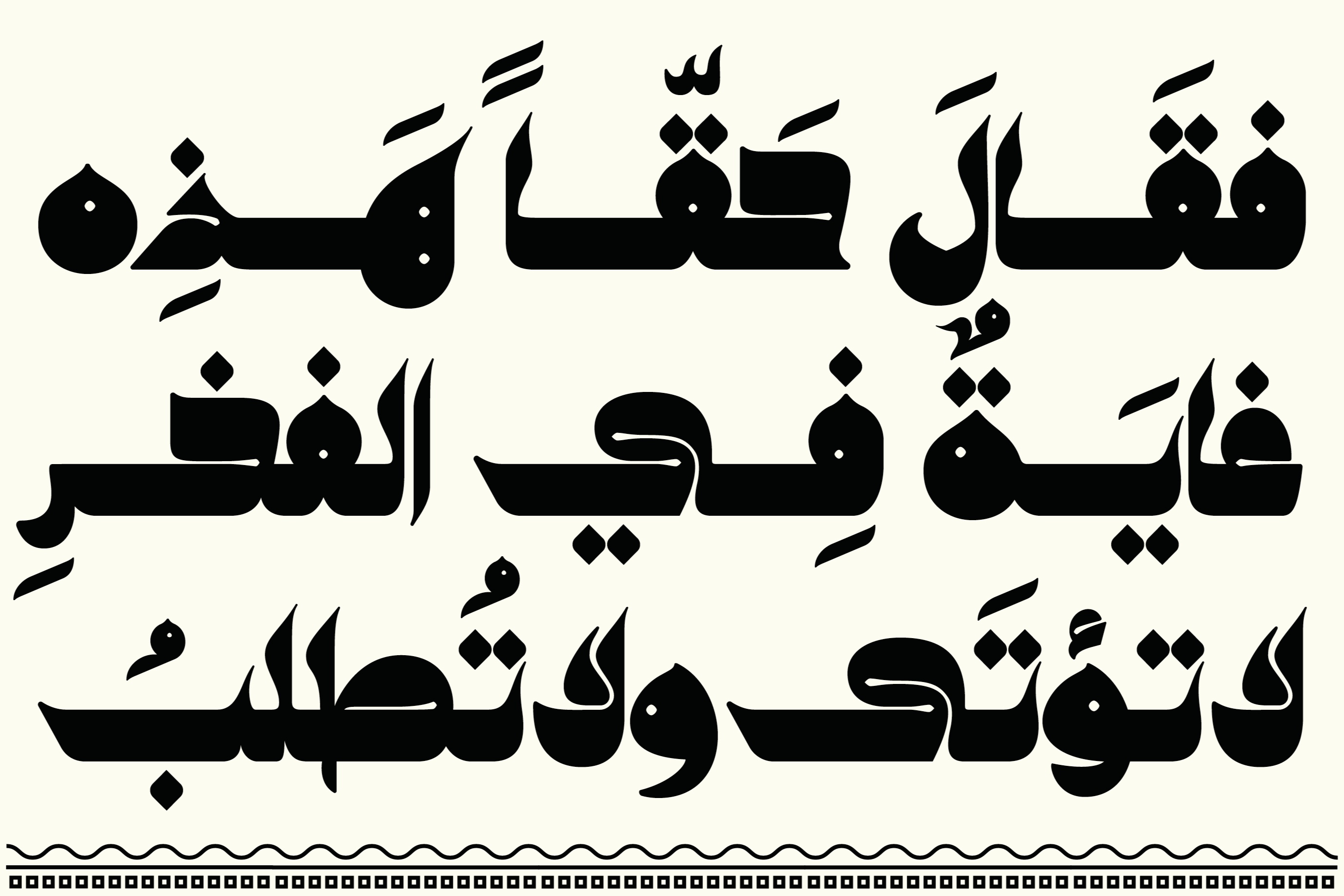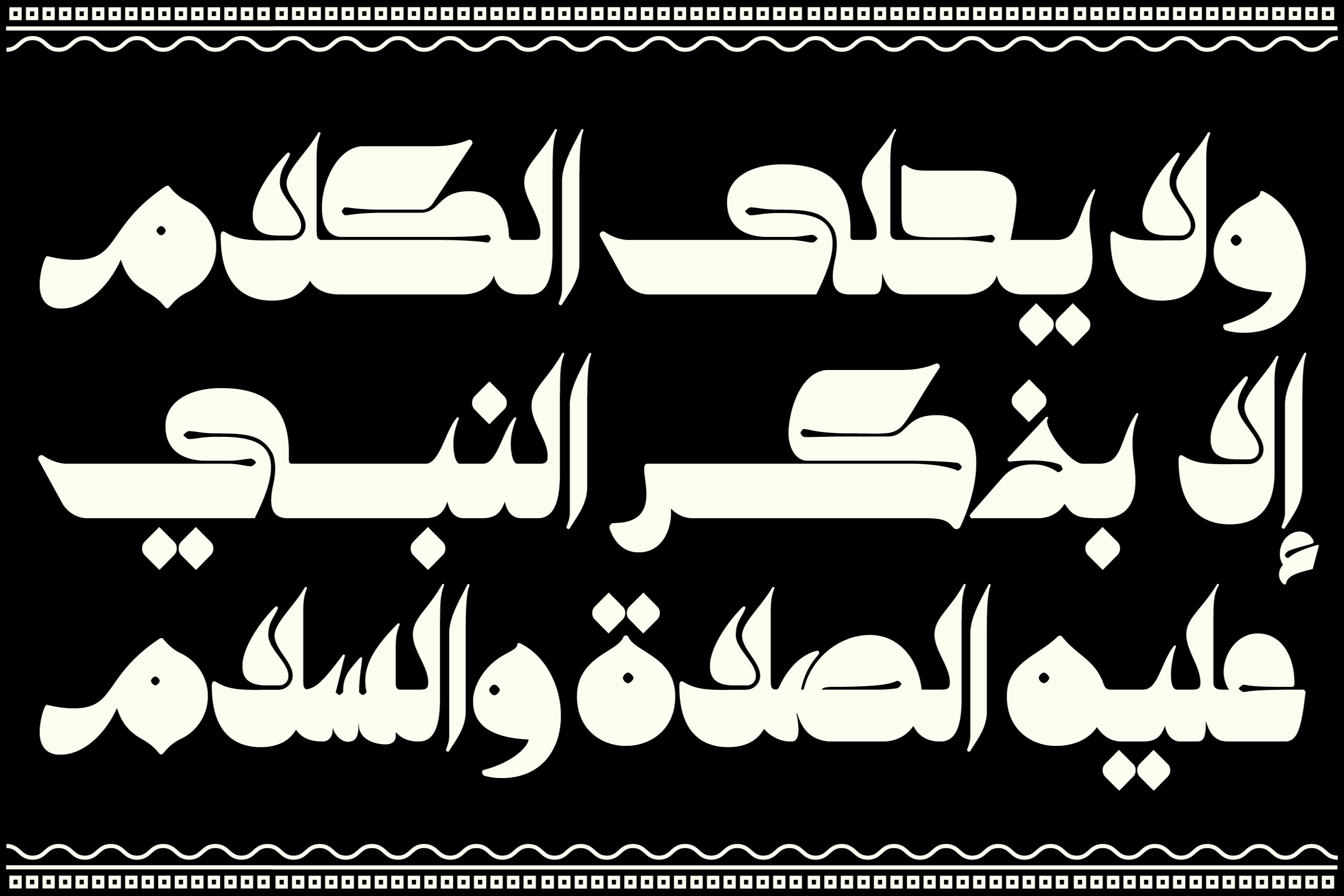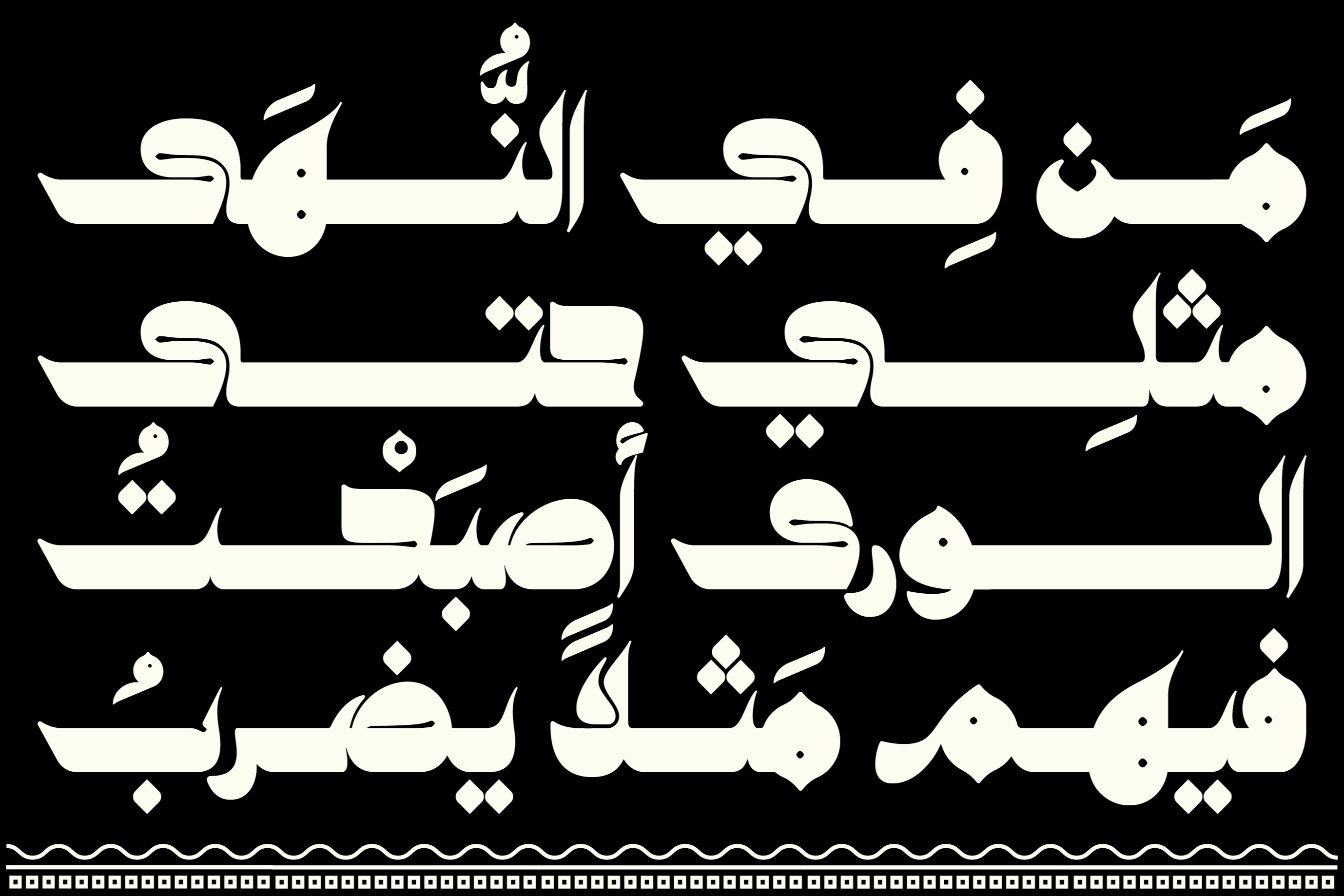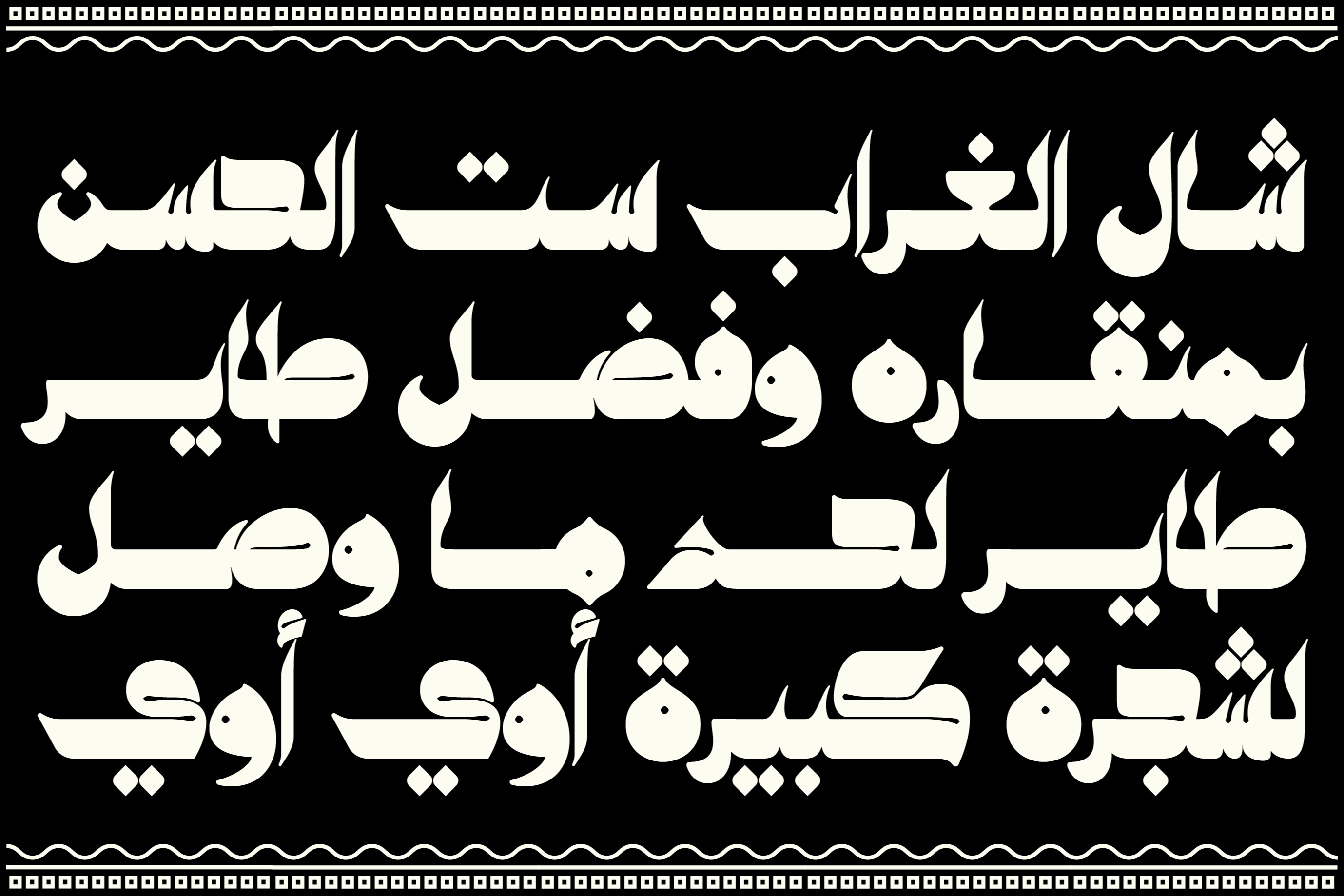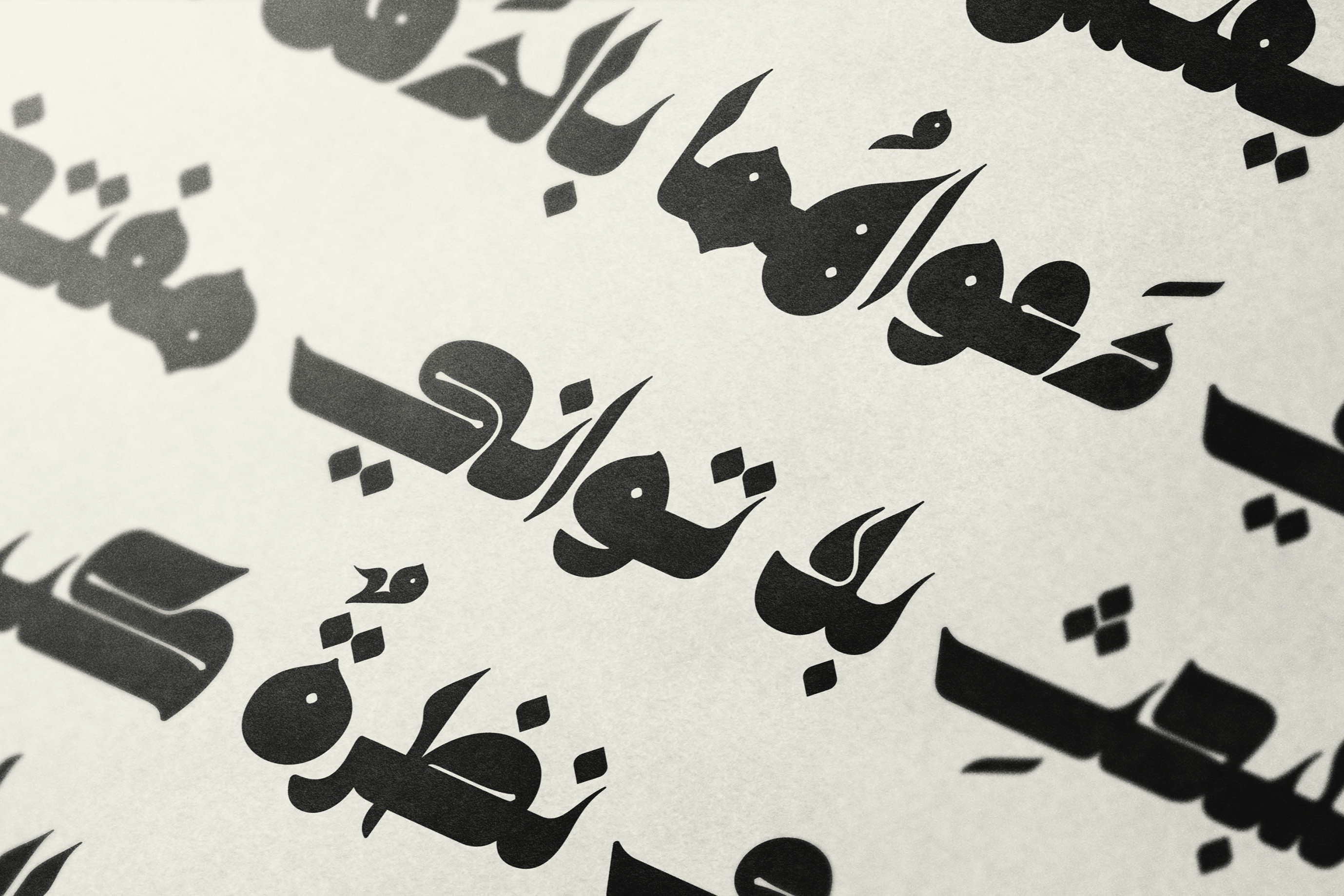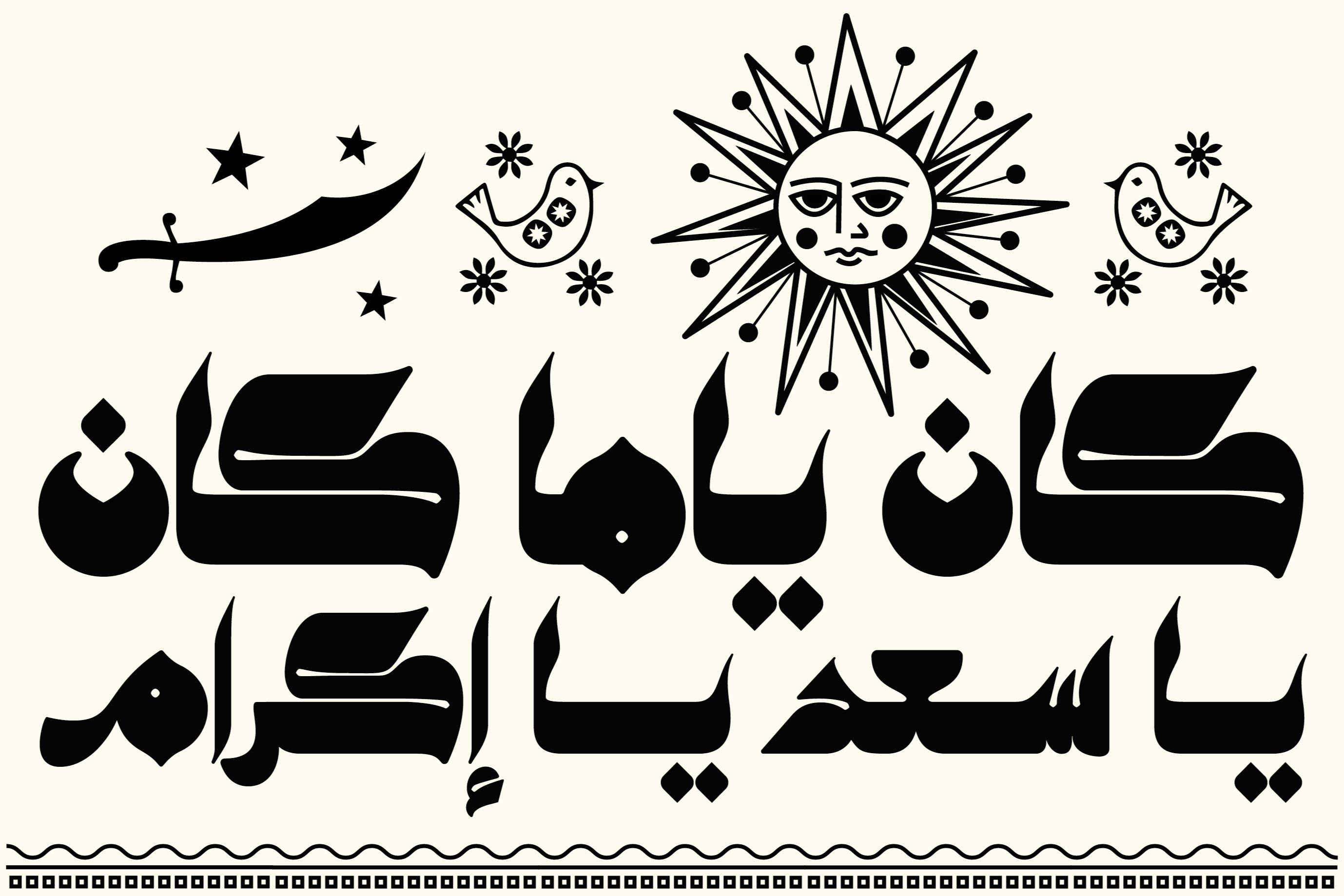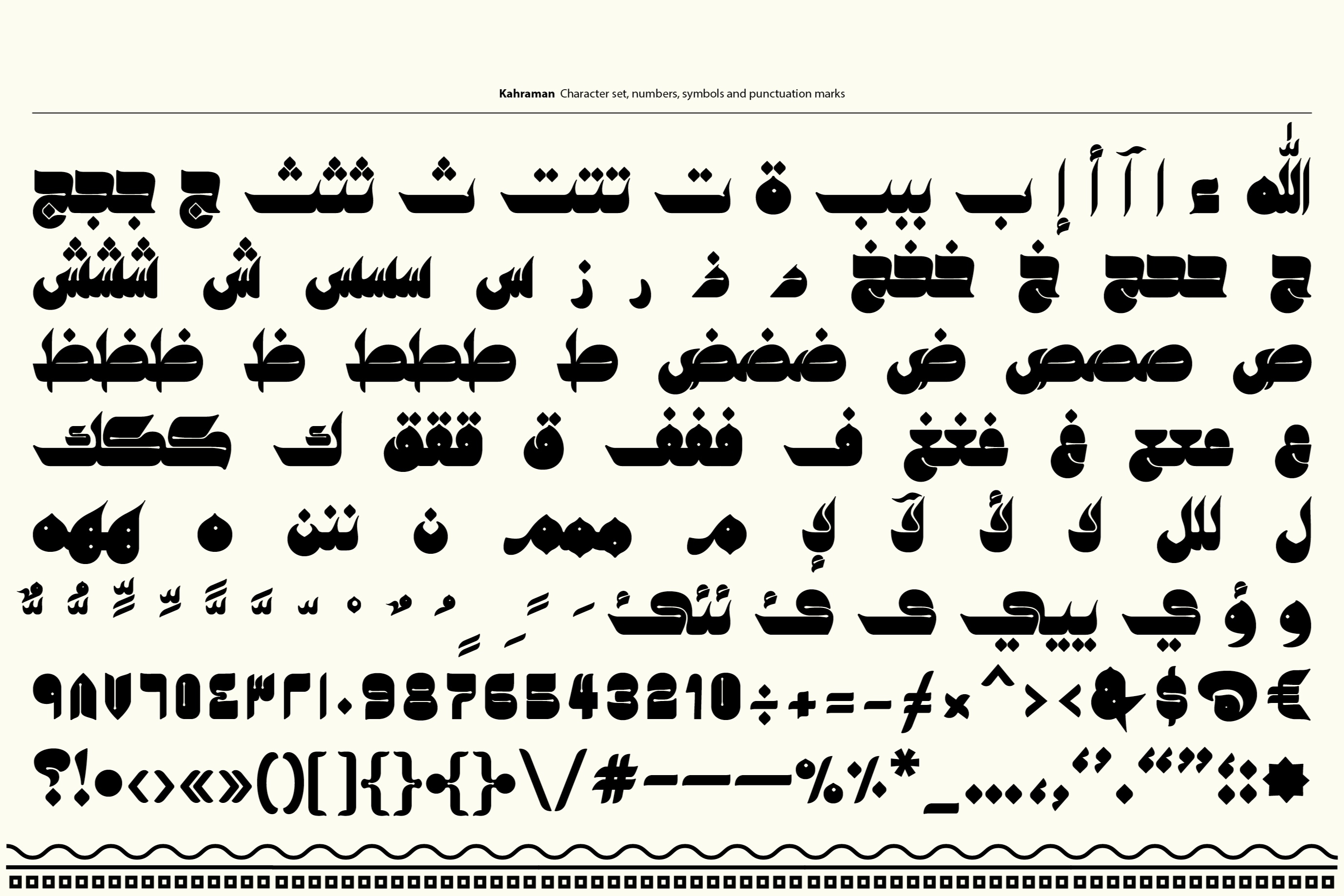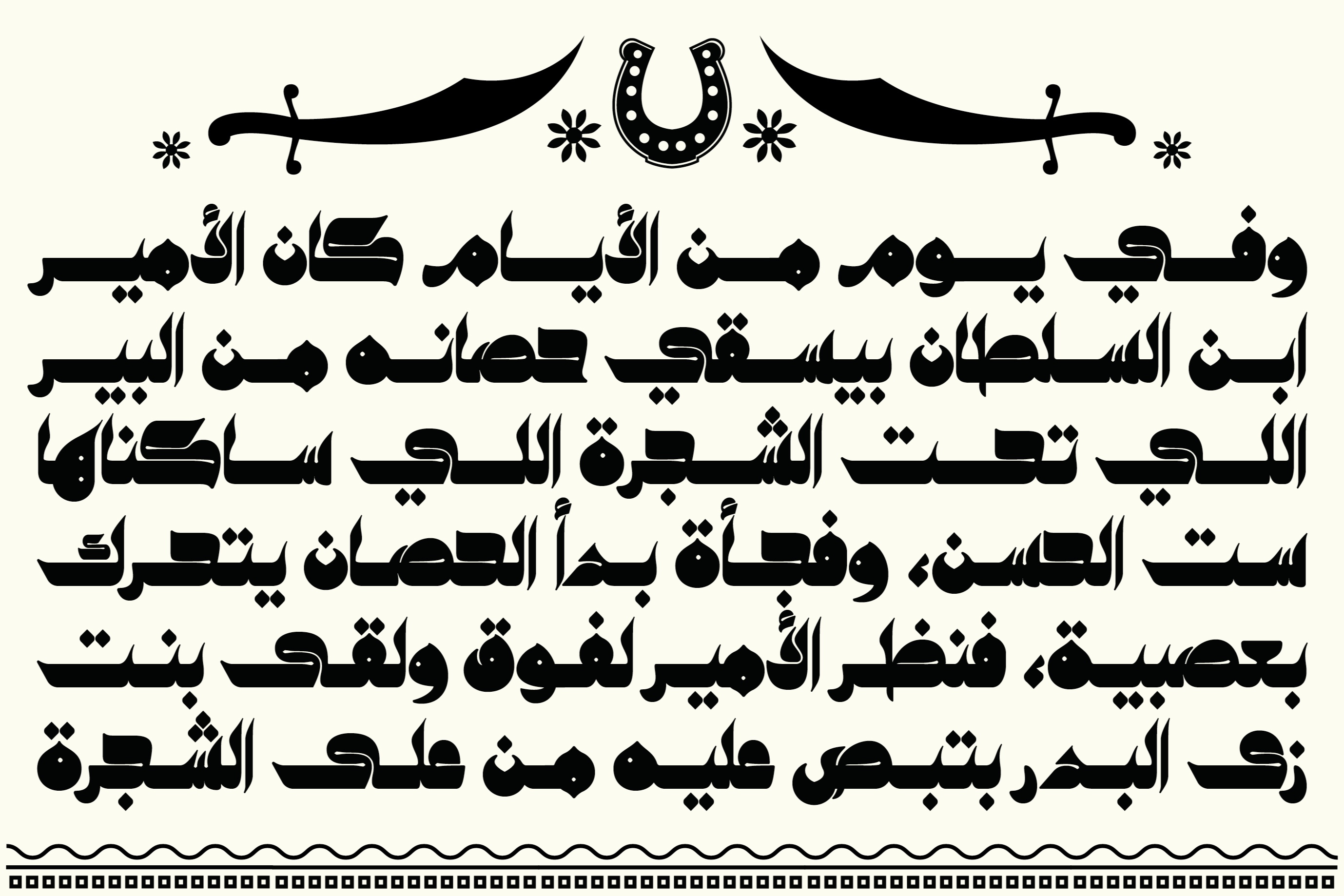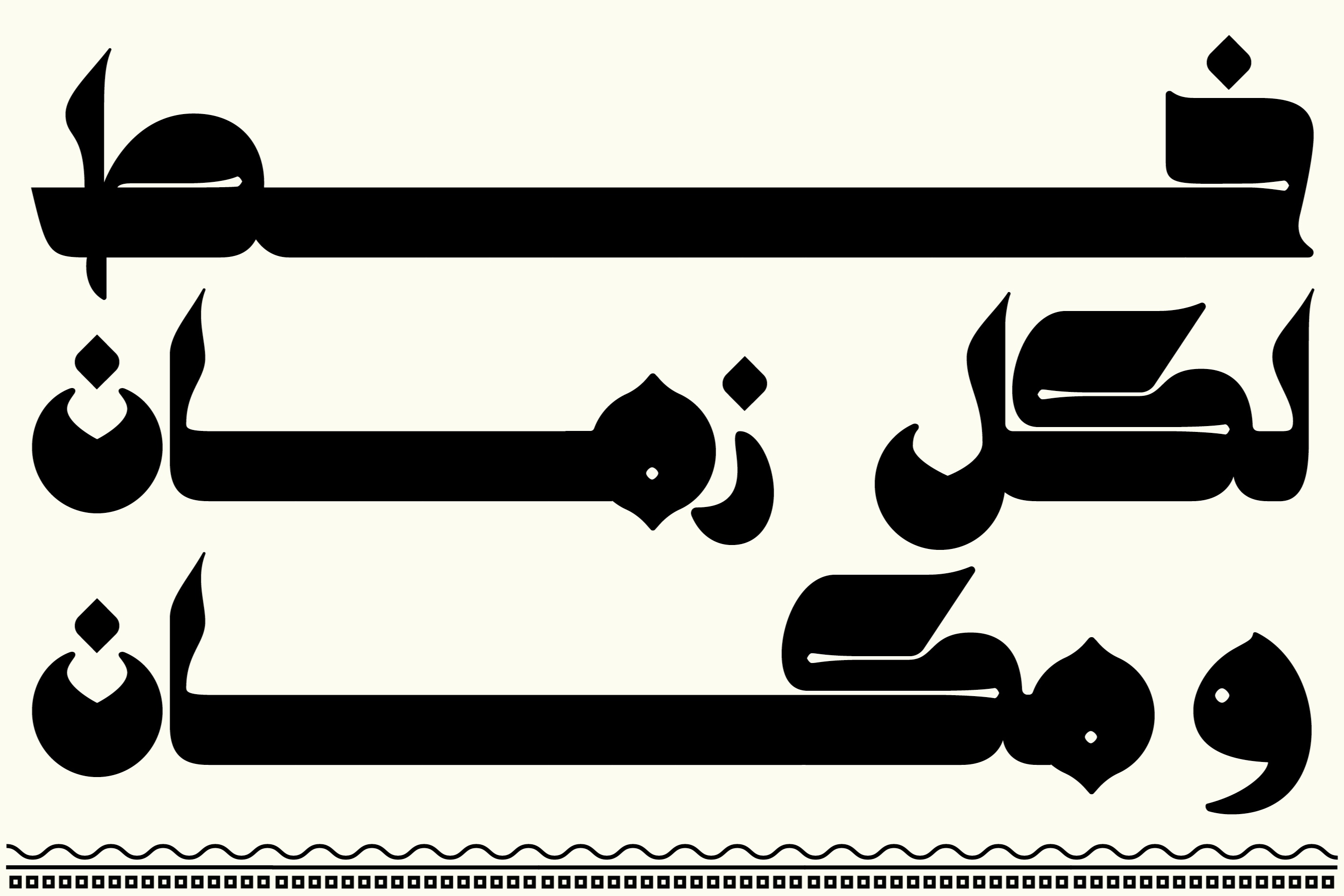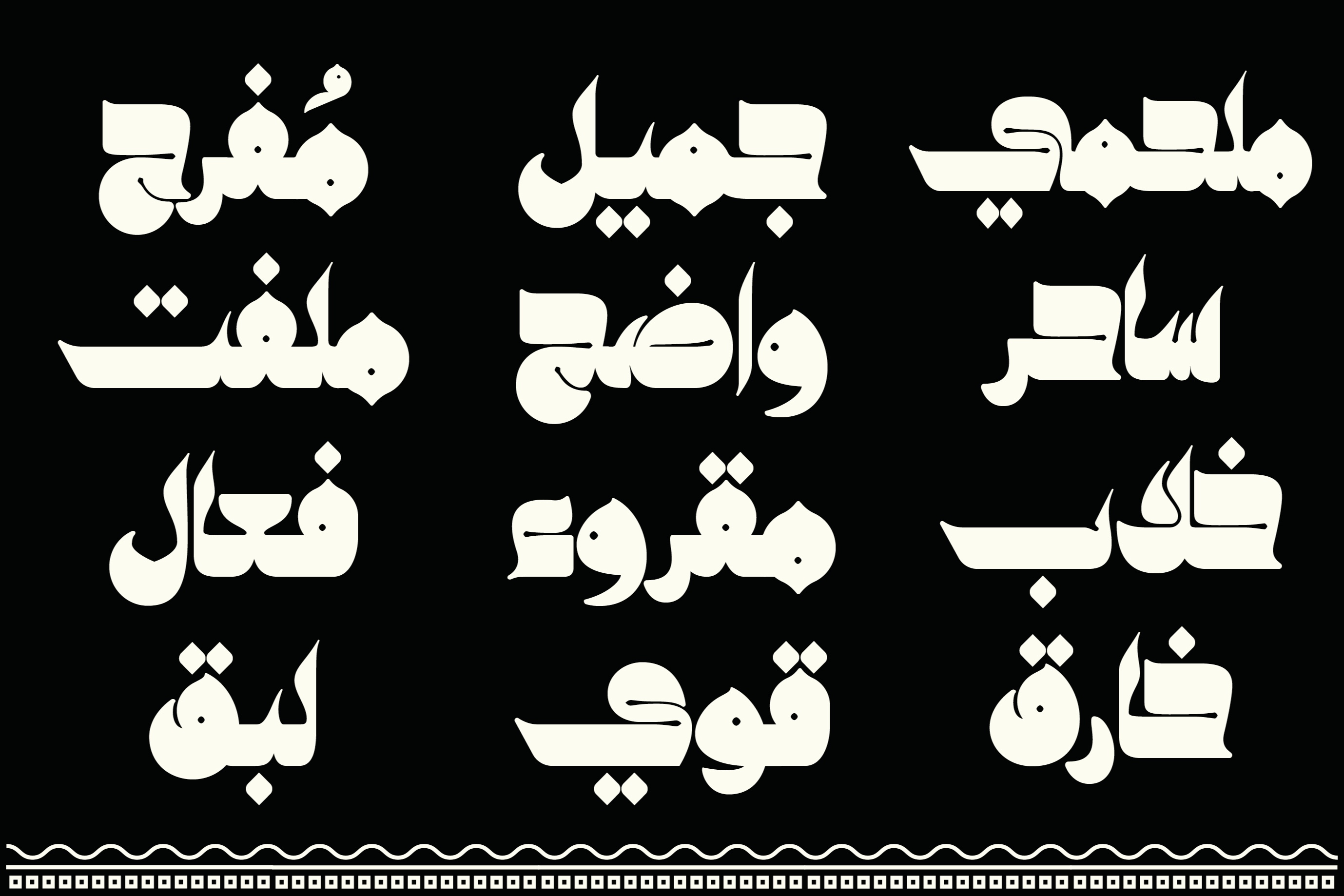
Kahraman - Arabic Font
Kahraman (Arabic for “Amber”) is an Arabic display font inspired by the folk tales of One Thousand and One Nights. Its letterforms feature a distinctive style, spontaneously crafted to complement illustrations found in tales, love stories, tragedies, comedies, and poems. Kahraman is suitable for print, web design, and mobile applications.
Single style
270+ Characters